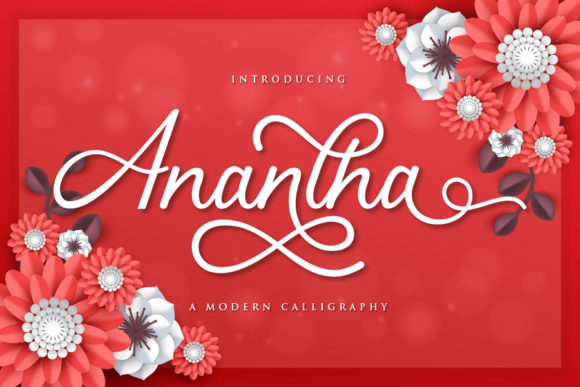
Escape the ordinary and step into the world of Anantha, a script font that will captivate your audience and leave a lasting impression. Designed with the intention to allure, Anantha exudes elegance and charm, making it the perfect choice for those looking to create stunning designs that speak to the heart. Let Anantha guide you through a journey of creativity, where your words come alive with a touch of sophistication and a dash of whimsy.
With Anantha by your side, you can transform ordinary designs into captivating masterpieces. Its beautiful handwritten style adds a personal touch to your projects, making them feel intimate and heartfelt. Whether you're creating a captivating logo, an eye-catching poster, or an unforgettable product label, Anantha will elevate your designs to new heights of beauty and distinction.
Anantha's versatility knows no bounds. It seamlessly blends with a wide range of design aesthetics, from classic and timeless to modern and edgy. Whether you're creating a resume that demands attention, a wedding invitation that evokes romance, or a social media post that sparks engagement, Anantha has the power to transform your words into works of art.
Its PUA encoding makes accessing all of Anantha's glyphs and swashes effortless, giving you the freedom to explore endless creative possibilities. Unleash your imagination and let Anantha guide you on a journey of self-expression and creativity.
Embrace the beauty of Anantha today and watch your designs flourish. Let this captivating font ignite your passion and unlock a world of boundless creativity. Anantha awaits you, ready to transform your designs and captivate your audience.